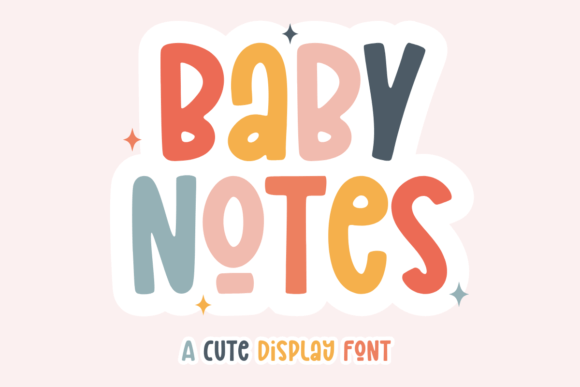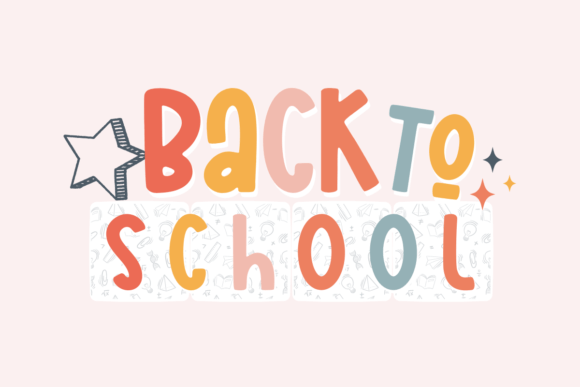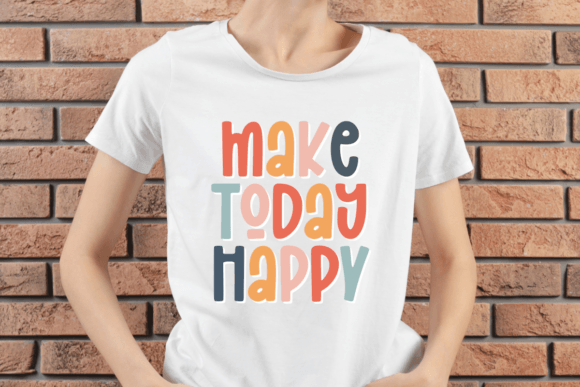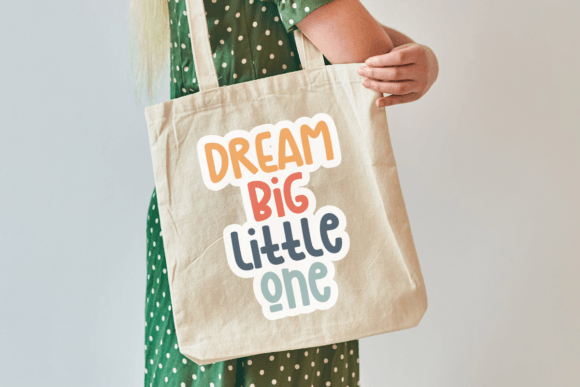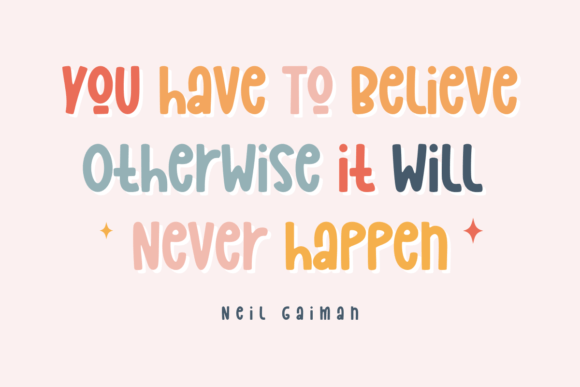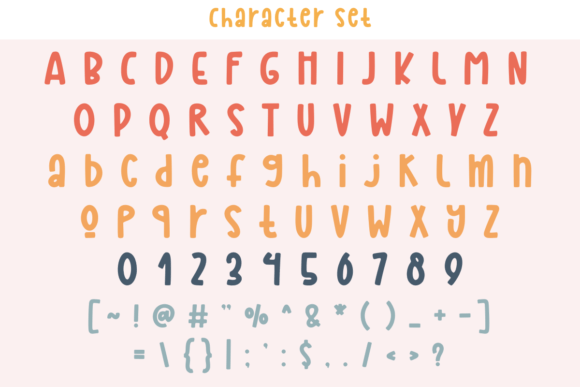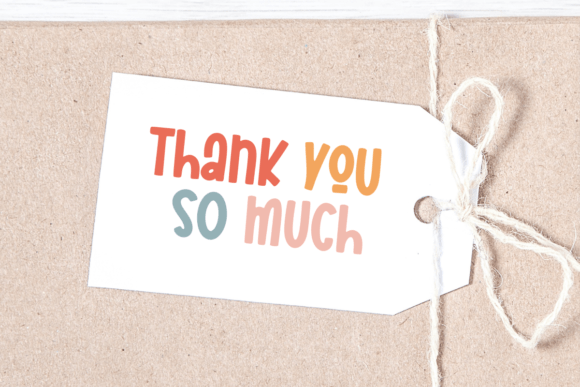
Baby Notes Font
Baby Notes, a charming font filled with whimsy! It carries a delightful blend of adorableness that is bound to add a dash of joy to your work. Experiment by mixing upper and lower-case letters, adding a playful twist to your designs. This versatile font is the ideal match for crafting projects, back-to-school needs, trendy t-shirt designs, stimulating quotes, chic tote bags, and enchanting children’s apparel. Add the finishing touch to your book covers with Baby Notes, and watch your creative projects come alive!